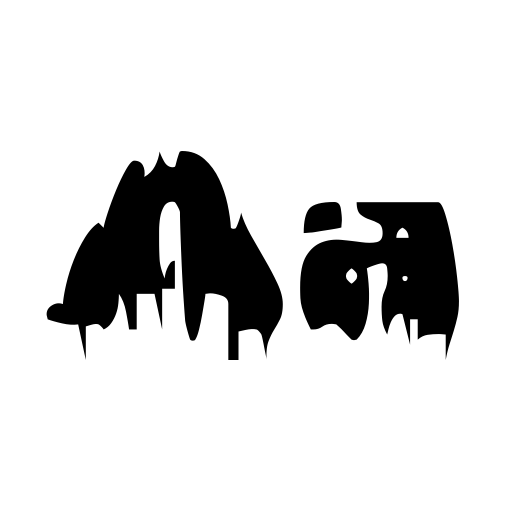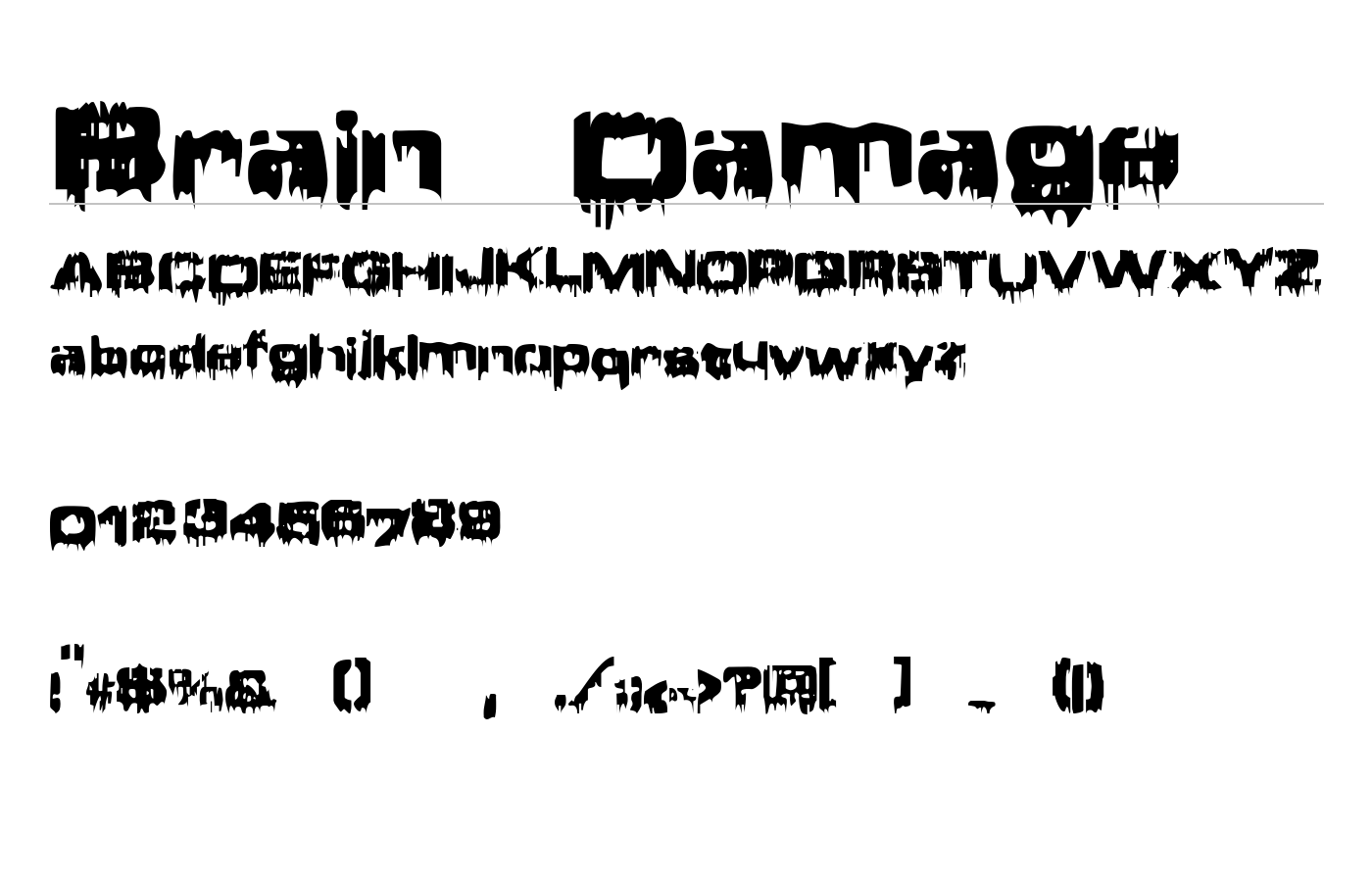
Brain Damage Font is a bold, heavy display typeface with a grungy, distressed look characterized by irregular edges and dripping effects that evoke a sense of horror or decay. Its thick, blocky letterforms with high contrast in stroke texture give it a striking and chaotic personality, making it ideal for Halloween-themed designs, horror movie titles, posters, and other edgy creative projects that want to convey darkness and intensity.
Brain Damage Font
About Brain Damage Font